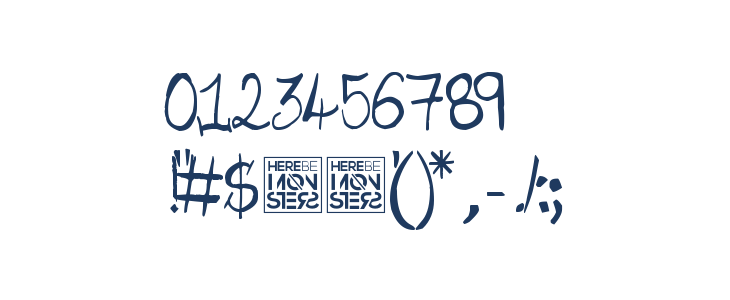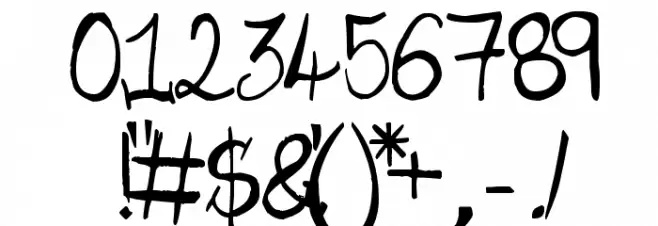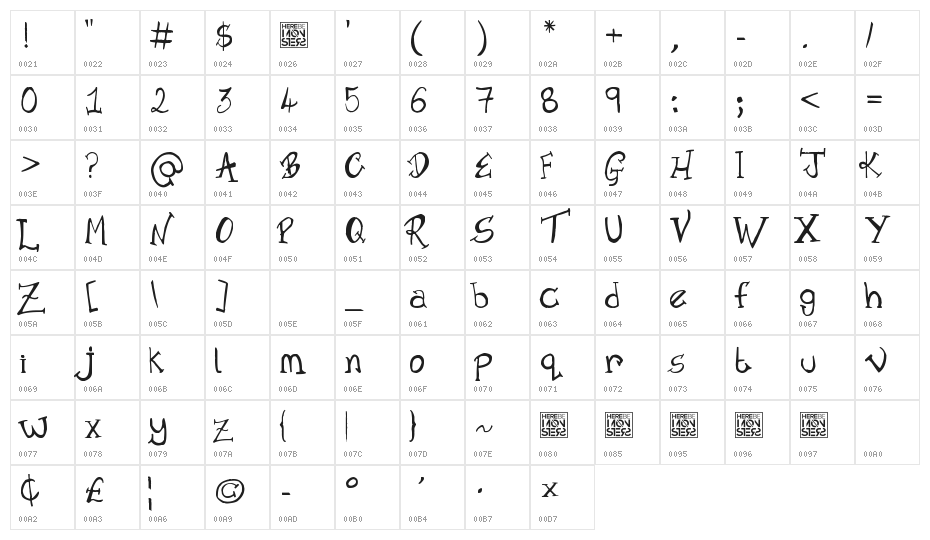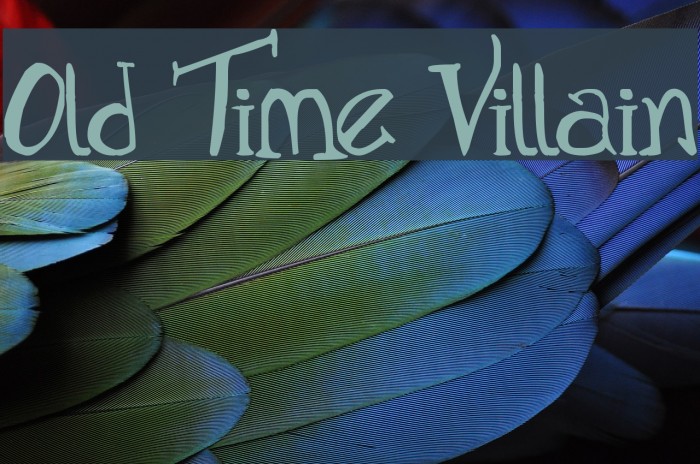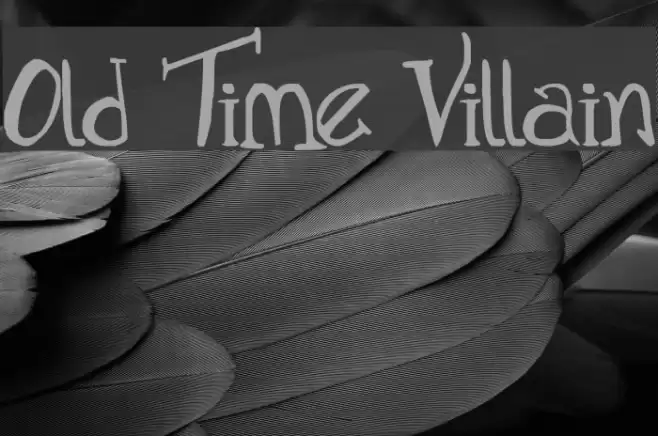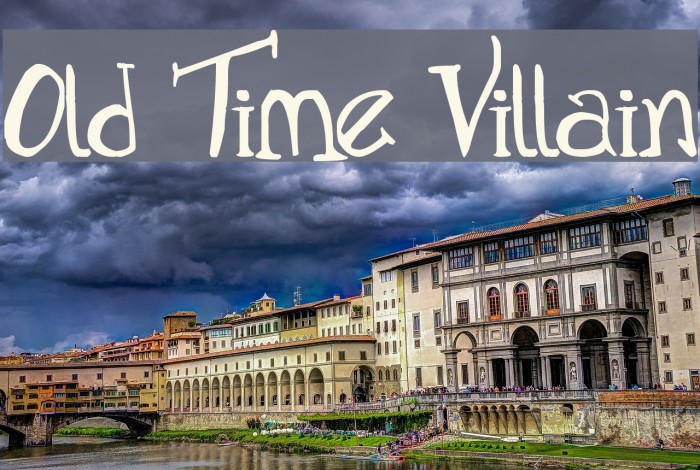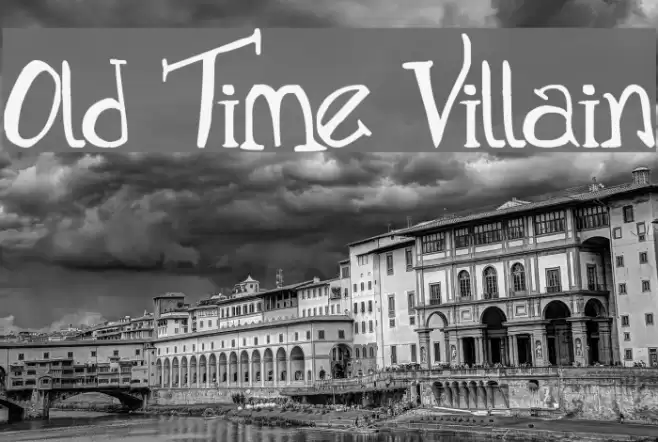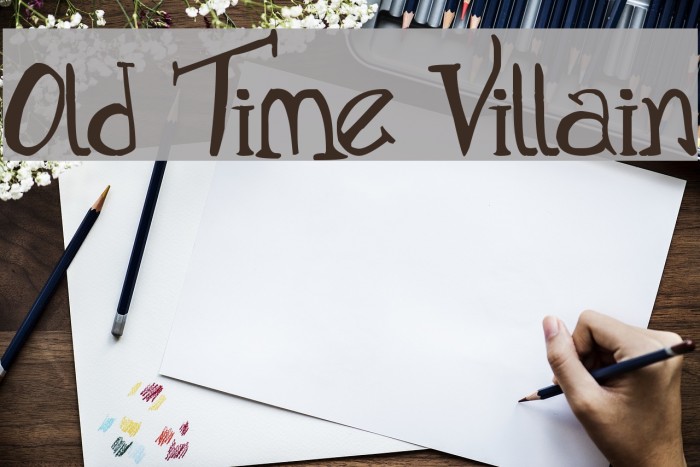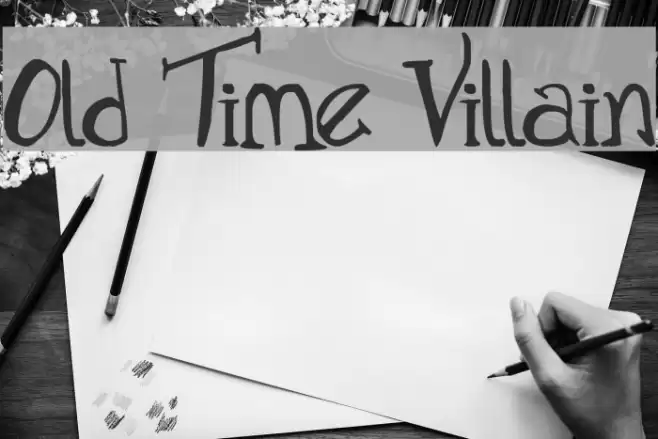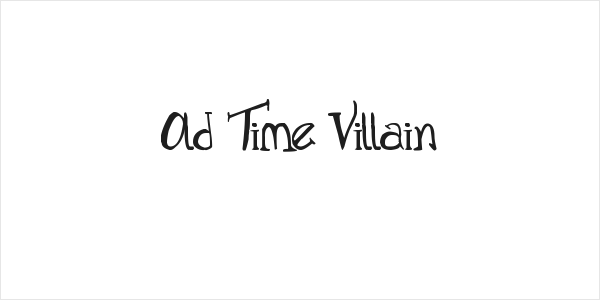
Old Time Villain Font
Old Time Villain Description
This font features a playful, whimsical style with exaggerated curves and uneven lines, giving it a hand-drawn appearance. The uppercase letters are bold and dynamic, with varying stroke widths that add a sense of movement and energy. The lowercase letters maintain the same playful aesthetic, with quirky loops and unexpected angles. Numbers and special characters follow suit, contributing to the font's overall lively and informal feel. The font's unique style makes it stand out, perfect for projects that require a touch of creativity and fun.
| Overall Style | Whimsical, Playful |
| Proposed Projects | Ideal for children's books, comic strips, playful branding, and creative posters. |